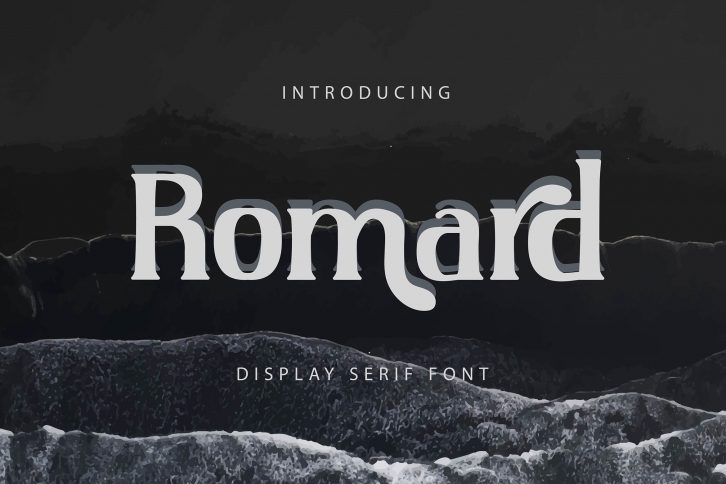
Romard is a bold and assertive serif font. Whatever the topic, this font will be a wonderful asset to your font library, as it has the potential to enhance any creation.